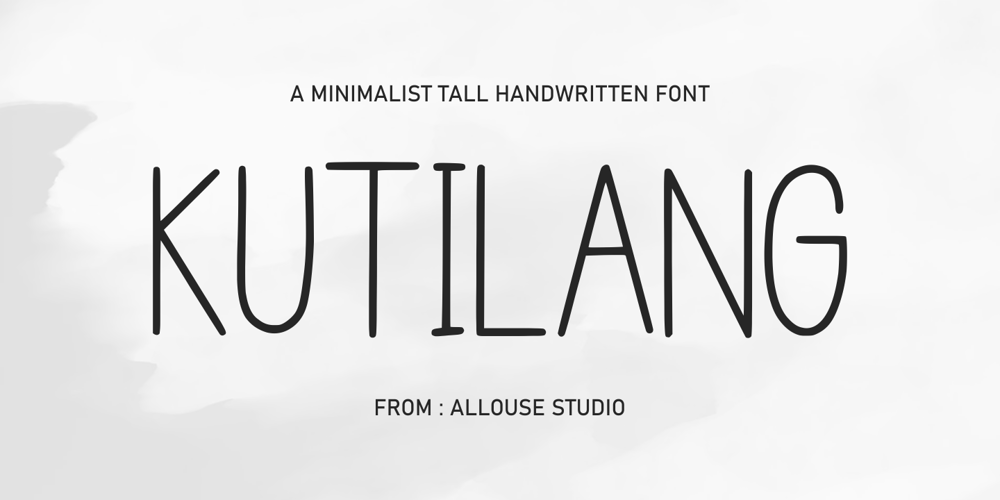
Kutilang Font Family was designed by Fachrizal Yusuf and published by Allouse Studio. Kutilang contains 1 styles and family package options. Proudly Present, Kutilang a Minimalist Tall Handwritten Font.Kutiling come along with Multi-Lingual Support to fulfill your need.We highly recommend using a program that supports OpenType features and Glyphs panels like many of Adobe apps and Corel Draw, so you can see and access all Glyph variations.Kutilang is perfect for any tittle, product packaging, branding project, megazine, social media, wedding, or just used to express words above the background.Enjoy the font, feel free to comment or feedback, send me PM or email. Thank You!